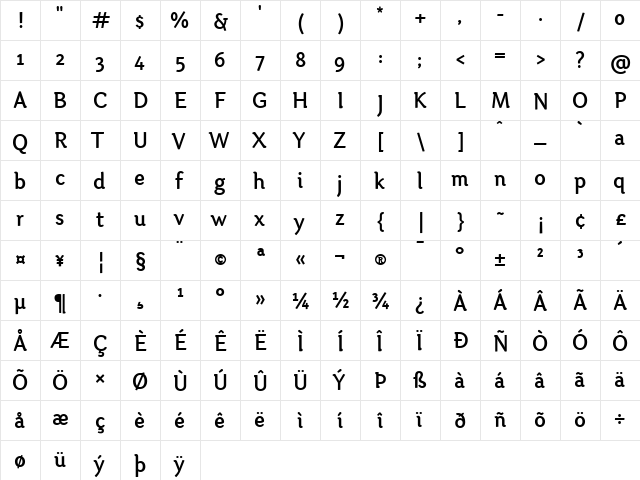
Otari Medium
| Foundry | Travis Kochel |
| Designer | Travis Kochel |
Design Context for Otari Typeface
Otari is a composed and adaptable typeface that performs quietly and consistently across a wide range of design contexts.